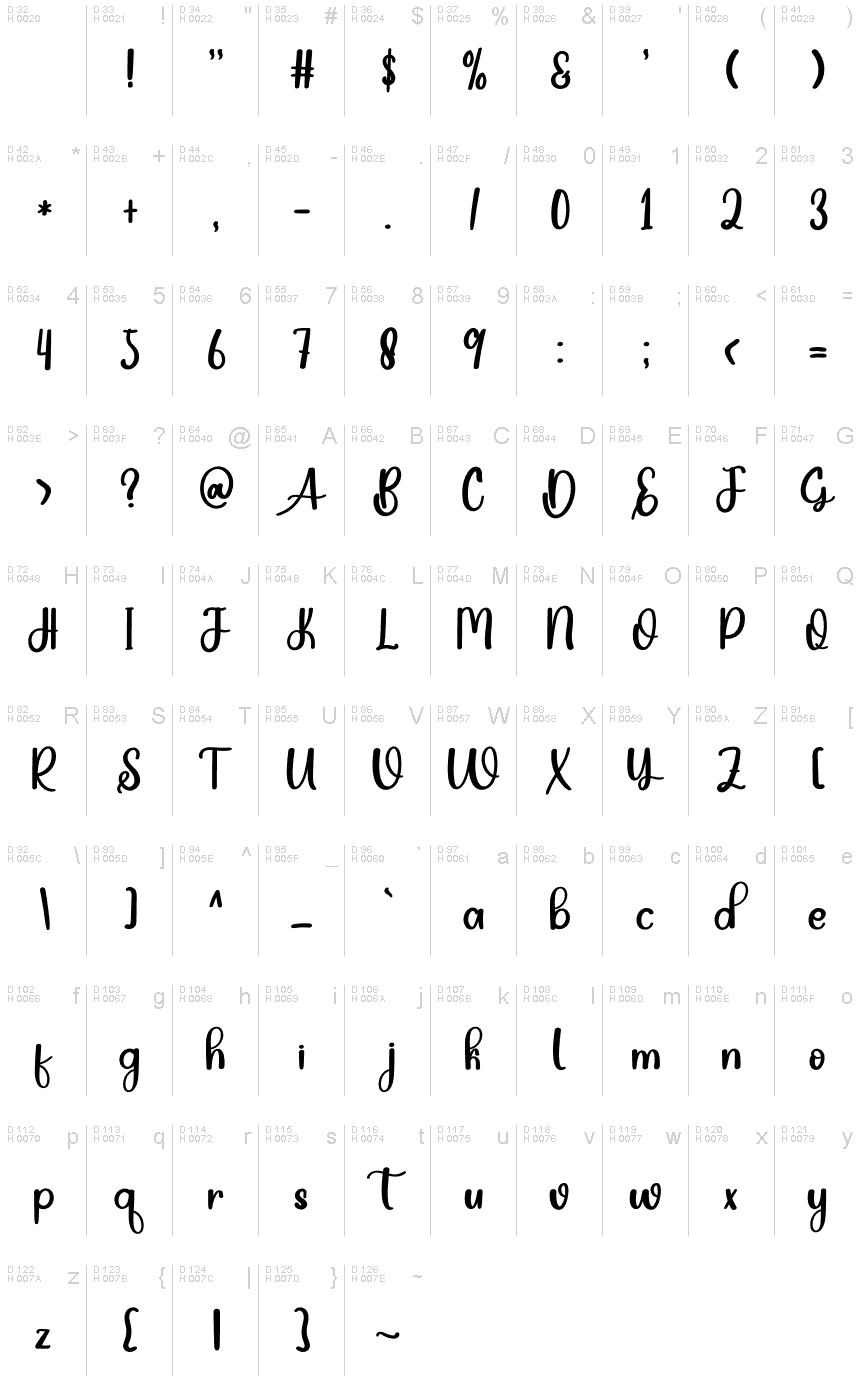
Venom
Venom, a captivating handwritten font by PiPi Creative, adds an artistic touch to your personal projects. With its semi-bold weight, this font exudes confidence and uniqueness. Ideal for greeting cards, handwritten notes, or personal blog headers, Venom creates a warm and inviting atmosphere. Its flowing letters and organic strokes make it perfect for adding a personal touch to invitations or event announcements. Whether you're designing personalized stationery or crafting heartfelt messages, Venom is the go-to choice for adding a touch of elegance to your personal projects.